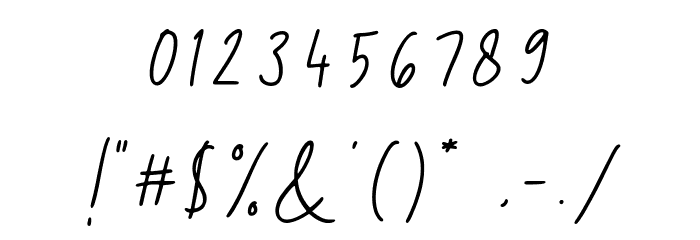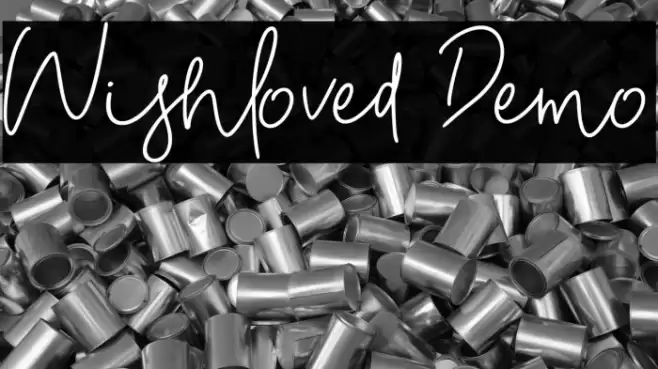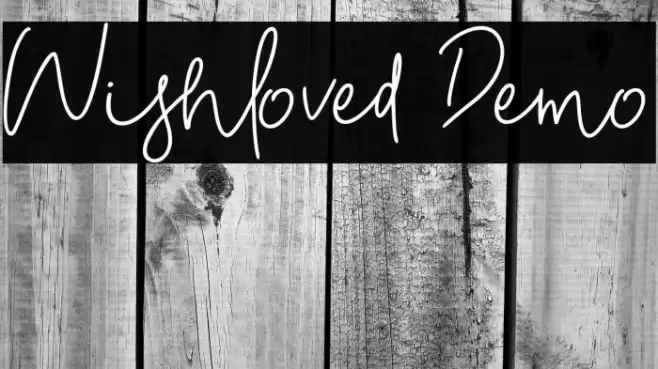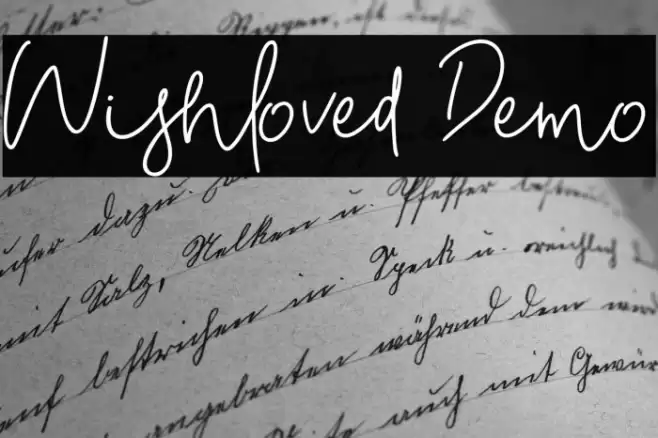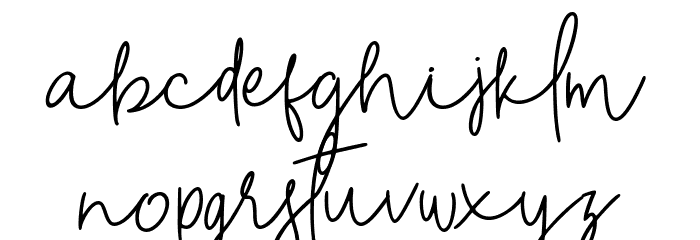
Wishloved Demo Font
Wishloved Demo Description
This font features a handwritten, cursive style that exudes a personal and casual feel. The letters are fluid and connected, with a natural flow that mimics real handwriting. The strokes vary in thickness, adding a dynamic and lively touch to the text. The uppercase letters maintain a consistent height, while the lowercase letters have a playful bounce, creating a harmonious yet informal appearance. The numerals and special characters are crafted with the same attention to detail, ensuring a cohesive look across all elements. This font is perfect for projects that require a personal touch, such as invitations, greeting cards, or branding materials that aim to convey warmth and approachability.
| Overall Style | Casual, Personal |
| Use Case | Headlines, Invitations, Greeting Cards |
| Proposed Projects | Ideal for invitations, greeting cards, personal branding, and any project needing a warm, approachable feel. |